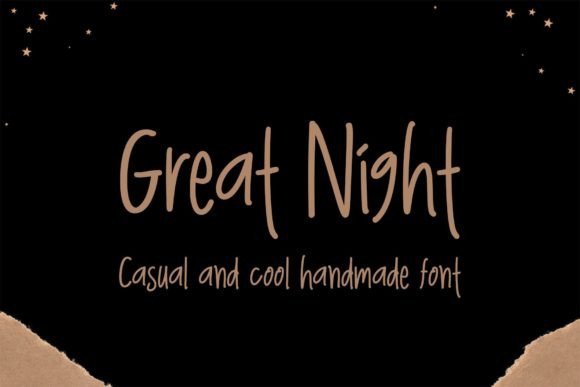
The Perfect Nighttime Companion for Your Designs
Have you ever been stuck in the middle of a creative project, desperately searching for the perfect font to bring your idea to life? It’s a feeling we’ve all been through at some point, and it can be frustrating. But what if you stumbled upon a font that not only fits your style but also elevates your entire design? That’s exactly what the Great Night Font has to offer.
This cool, casual, and friendly lettered display font is designed to look great and natural, making it perfect for a wide range of creative projects. With its handmade precision, the Great Night Font is an incredible asset to any designer’s library, capable of taking any creation to the next level.
Great Night Font Key Features
- Unique Characteristics: This font boasts a unique blend of modern and vintage elements, with intricate details and subtle texture, creating a distinctive aesthetic.
Designer Review: Great Night Font
Overall, I was quite impressed with the Great Night Font for its modern and sleek design. Here are some things that I thought worked particularly well:
- ✨ Unique aesthetic: The Great Night Font has a distinctively modern look that I think would be a great addition to any digital product.
- ✨ Versatility: It comes in a range of weights and styles, making it suitable for various design applications.
- ✨ Legibility: The font is highly legible, even at smaller sizes, making it perfect for body text.
However, there were some limitations that I encountered:
- ⚠️ Limited language support: The font doesn’t support certain languages, which may be a problem for designers working on international projects.
- ⚠️ Limited glyph set: Some designers may find the glyph set lacking, particularly when it comes to special characters and symbols.
Overall, I think the Great Night Font is a solid choice for designers looking for a modern and sleek font. While it has its limitations, I believe it’s a great addition to any design toolkit. With a bit more development, I think this font could be truly exceptional.
Great Night Font Practical Application Guide
Getting the Most Out of Great Night Font
To get the most out of Great Night Font, use it for creative and artistic purposes such as:
- Typography-based designs
- Brand logos and identities
- Artistic quotes and phrases
Remember to use Great Night Font in moderation, as its bold and playful nature can be overwhelming if used excessively.
Alternatives to Great Night Font
Montserrat is a modern sans-serif font, ideal for use in digital and print media. Its clean and geometric design makes it perfect for headlines and body text. When to use: For projects requiring a contemporary and sophisticated look. Comparison: Montserrat is more geometric and clean than Great Night Font, which has a more distressed and vintage feel.
Playfair Display is an elegant and luxurious serif font, suitable for high-end projects and designs. Its ornate details and refined lines make it perfect for titles, headings, and quotes. When to use: For projects requiring a sophisticated and luxurious look. Comparison: Playfair Display is more ornate and luxurious than Great Night Font, which has a more casual and vintage feel.
Source Sans Pro is a clean and professional sans-serif font, suitable for a wide range of projects and designs. Its modern design and high legibility make it perfect for body text and captions. When to use: For projects requiring a clean and professional look. Comparison: Source Sans Pro is more modern and professional than Great Night Font, which has a more distressed and vintage feel.